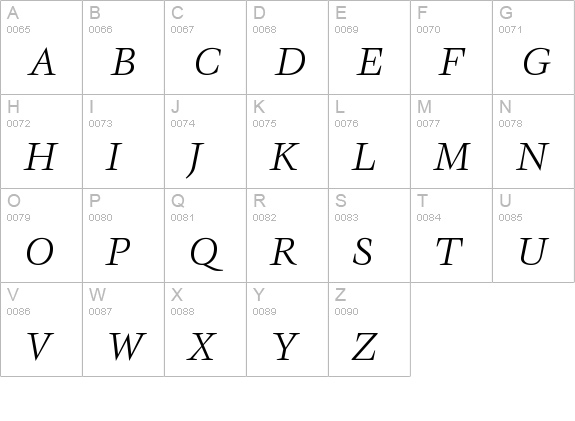
VeljovicEF-BookItalic Font Details
VeljovicEF-BookItalic is a magnificent and captivating font that encapsulates elegance and sophistication. This font exudes a sense of refined grace, making it perfect for projects that require a touch of class. With its delicate slant and beautifully crafted letterforms, VeljovicEF-BookItalic effortlessly captures attention and adds a touch of distinction to any design. This exquisite font is meticulously designed with attention to detail, resulting in a harmonious balance between legibility and artistic flair. The slender curves and graceful strokes of VeljovicEF-BookItalic create a visual feast for the eyes, making it a truly remarkable choice for typography enthusiasts. One of the most remarkable aspects of VeljovicEF-BookItalic is that it is available for free. Yes, you read that correctly! This stunning font can be freely downloaded at FontsMarket.com, allowing designers and creatives alike to access its beauty without any cost. This generous offering ensures that anyone can enjoy the charm and allure of VeljovicEF-BookItalic in their projects, regardless of their budget. Whether you are working on a branding project, a wedding invitation, or a magazine layout, VeljovicEF-BookItalic will surely elevate your design to new heights. Its timeless appeal and versatility make it a truly indispensable asset in any designer's toolkit. With its free availability, there is no reason not to explore the endless possibilities that VeljovicEF-BookItalic has to offer. Download VeljovicEF-BookItalic today from FontsMarket.com and unlock the power of this remarkable font. Let its elegance and sophistication elevate your designs and leave a lasting impression on your audience. Embrace the beauty of VeljovicEF-BookItalic and watch as it transforms your creations into works of art.